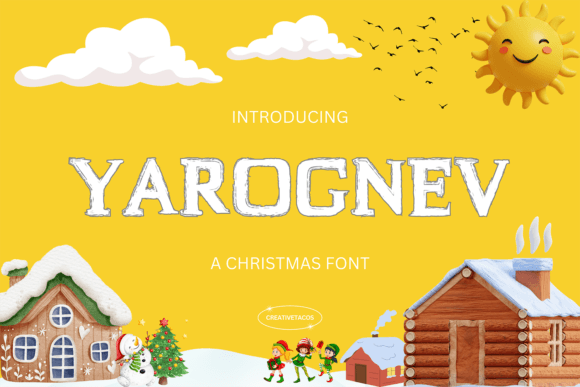
Introducing Yarognev Font, a display font that embodies the magic and wonder of the holiday season. Its unique and whimsical letters dance across your screen, capturing the true spirit of Christmas.
With Yarognev Font, your designs will be transformed into captivating works of art, spreading joy and cheer wherever they're seen. Dive into a world of creative possibilities, where your imagination takes center stage and your designs become a reflection of your festive spirit.
Yarognev Font isn't just a font; it's an experience. Each letter is meticulously crafted to evoke the warmth and excitement of the holiday season. Its playful curves and jolly strokes create a visual symphony that will make your designs shine brighter than a Christmas tree.
From enchanting greeting cards to eye-catching social media posts, Yarognev Font adds a touch of whimsy and charm to every project. Let your creativity soar as you design holiday-themed invitations, festive posters, or even personalized gift tags.
With Yarognev Font, the possibilities are endless. Whether you're a seasoned designer or just starting out, this font will ignite your creativity and leave you with stunning results that will impress and delight your audience. Embrace the magic of Christmas and let Yarognev Font elevate your designs to new heights of festivity.
Say goodbye to ordinary fonts and embrace the extraordinary with Yarognev Font. Its unique charm and festive flair will transform your designs into captivating creations, spreading joy and cheer wherever they go. Get ready to celebrate the season in style, with Yarognev Font as your trusty design companion.